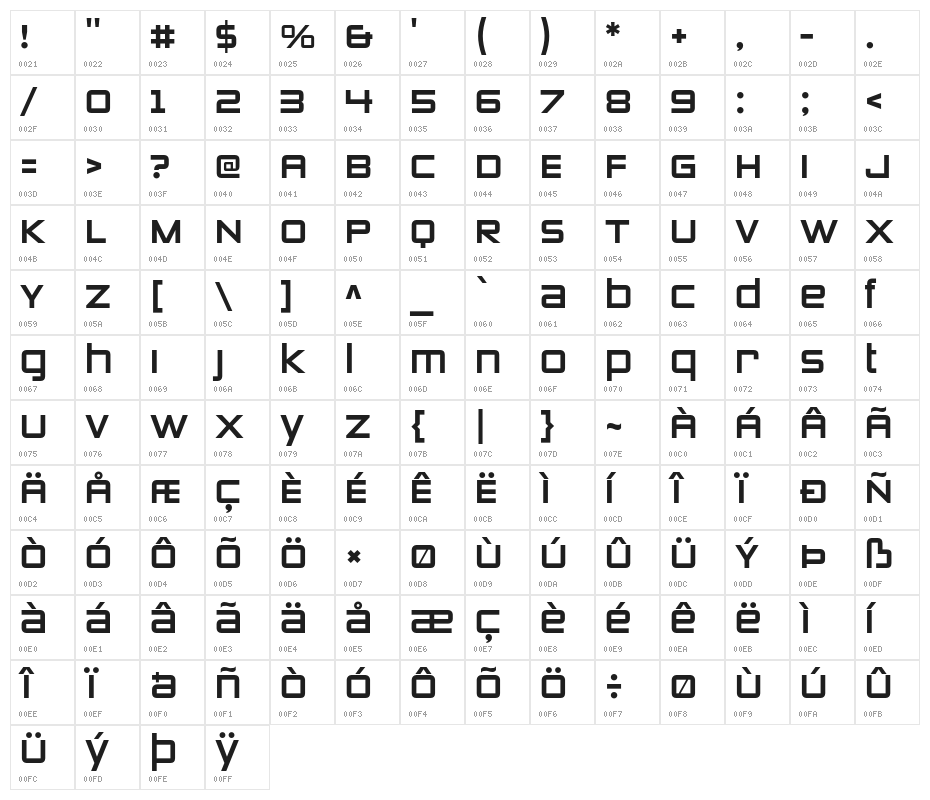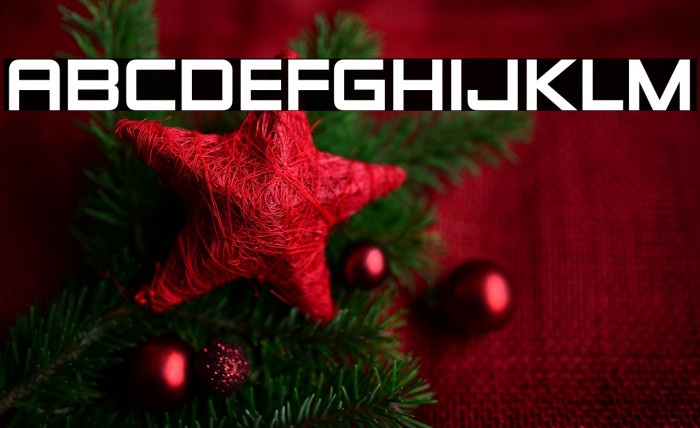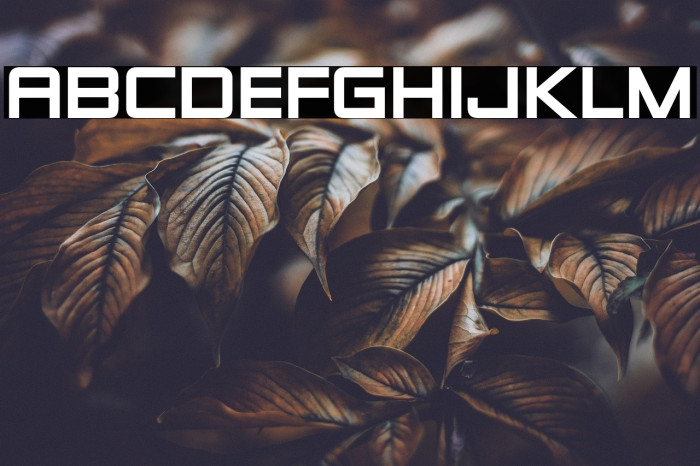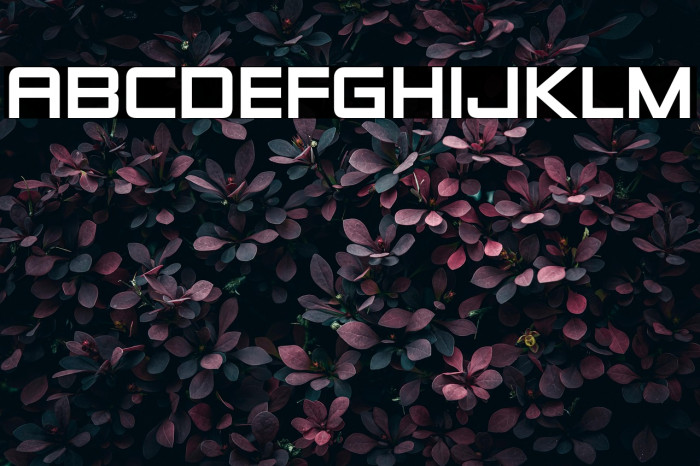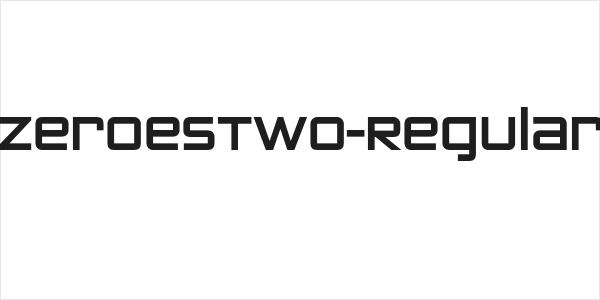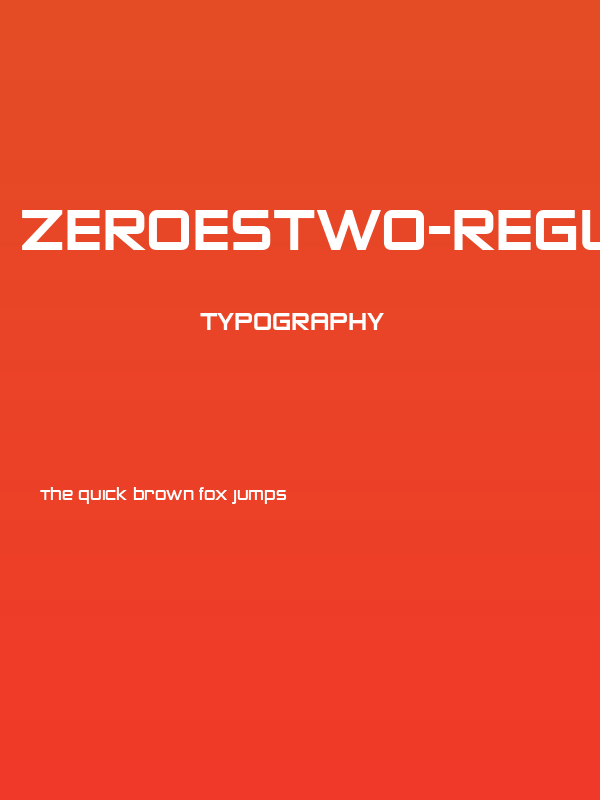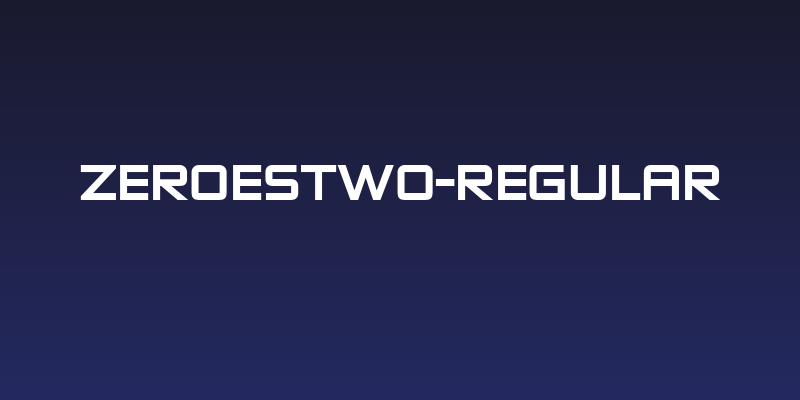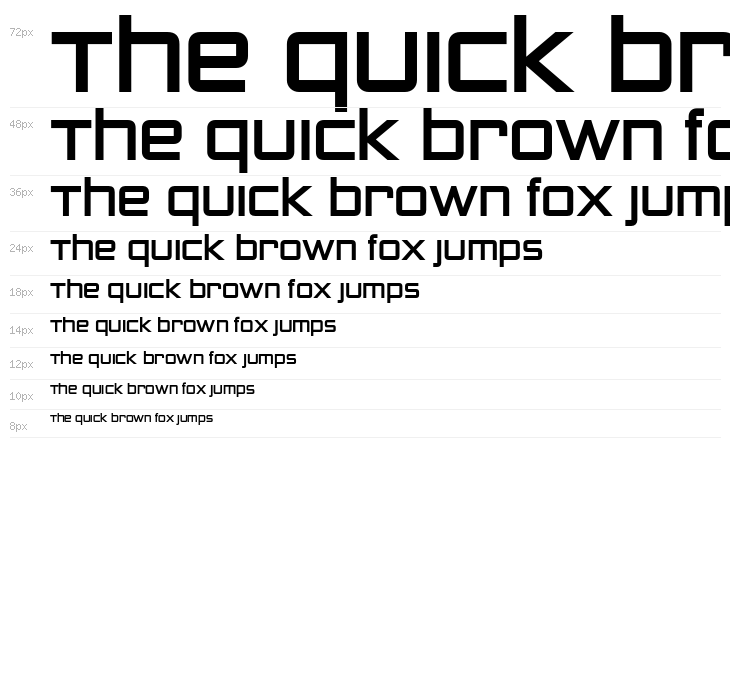
ZeroesTwo-Regular Font
ZeroesTwo-Regular Description
This font showcases a modern, geometric style with clean lines and a structured appearance. The characters are uniformly designed, featuring a consistent stroke width that gives a balanced and harmonious look. The uppercase letters are bold and assertive, while the lowercase letters maintain a similar geometric structure, providing a cohesive visual identity. The numerals are clear and easy to read, matching the overall aesthetic of the font. Special characters are well-integrated, maintaining the same design principles. This font is versatile and can be used in various design projects that require a contemporary and professional touch.